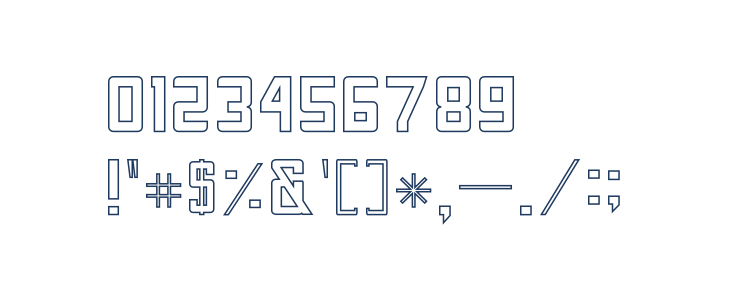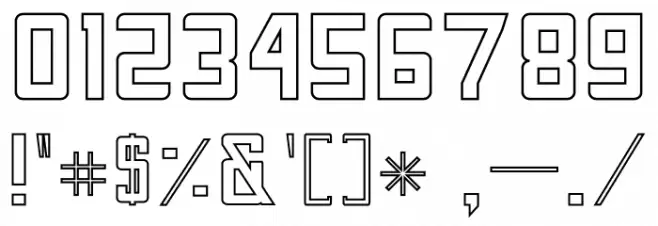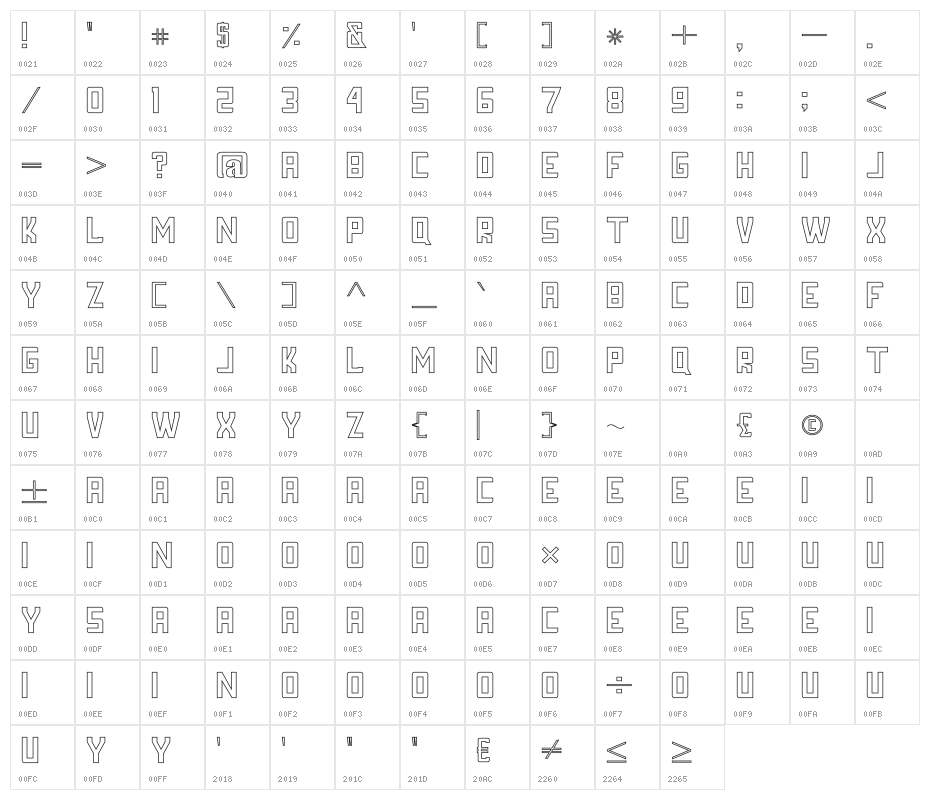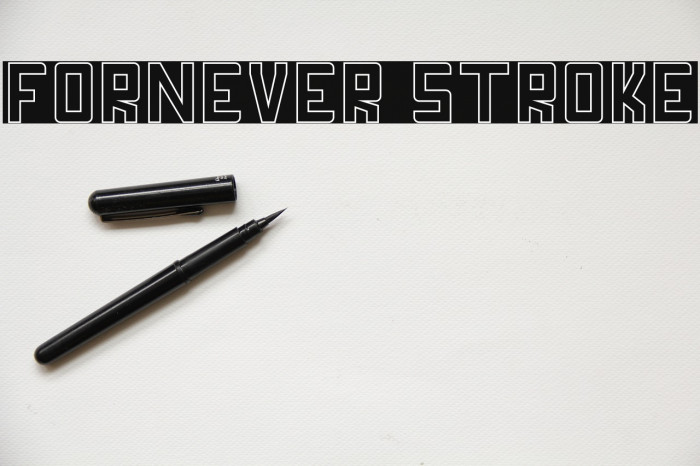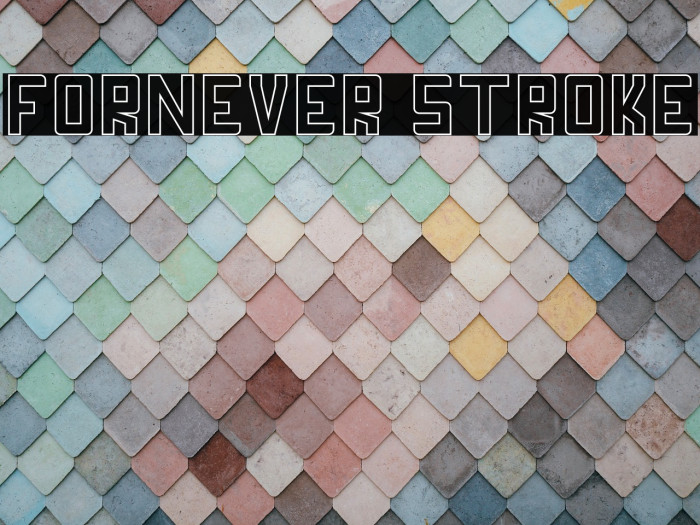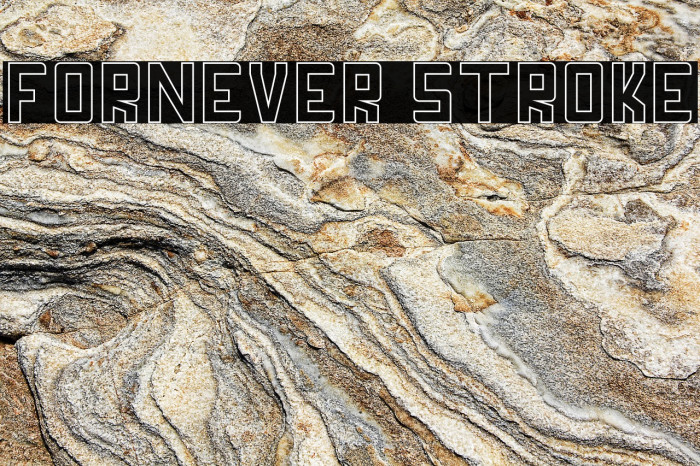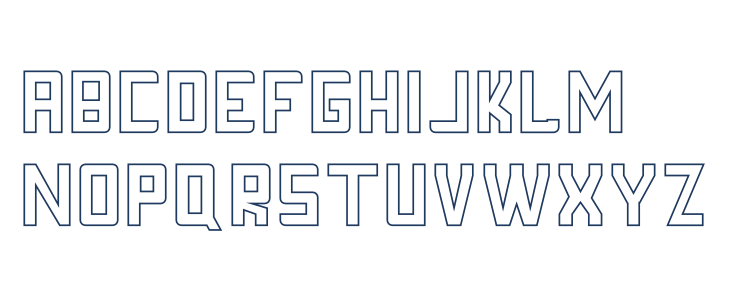
FORNEVER Stroke Font
FORNEVER Stroke Description
This font features a bold, geometric design with a distinct outline style, giving it a modern and futuristic appearance. The characters are uppercase and have a uniform stroke width, creating a cohesive and structured look. The design is clean and minimalistic, making it suitable for various digital and print applications. The numbers and special characters maintain the same stylistic approach, ensuring consistency across all elements. The font's unique outline effect adds a layer of depth and dimension, making it stand out in any design project.
| Proposed Projects | Ideal for branding, posters, digital media, and any project requiring a modern, standout typeface. |